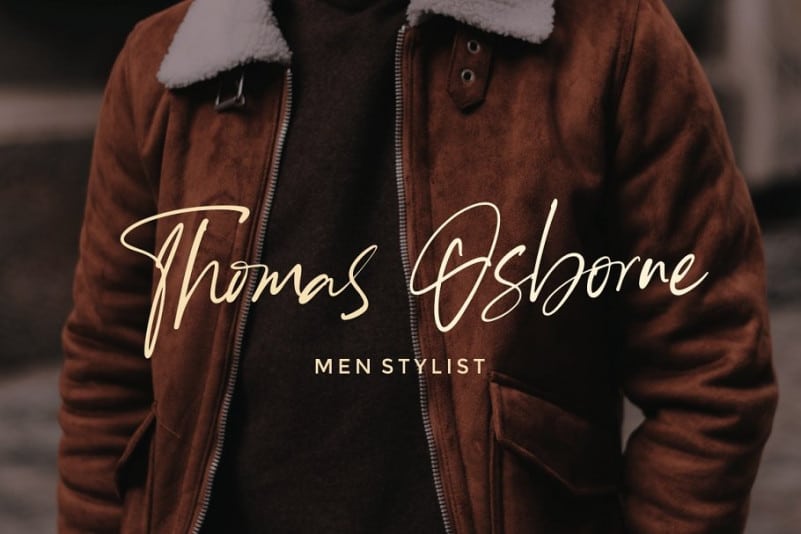
Westborn – Signature Font
Hello Guys, This is a Script Font with signature Style. The Winsthen font made with digital brush pen strokes that making this font look authentic! I hope this font perfect for creating signature logos and watermarks for a photography studio or wedding invitation, best for initial or branding logo signature. Introducing Westborn Font. It’s a stylish signature font perfect for branding, invitation, stationery, wedding designs, social media posts, advertisements, product packaging, product designs, label, photography, watermark, special events or anything. Westborn Signature comes with full set of uppercase and lowercase letters, 63 beautiful ligatures,multilingual symbols, numerals and punctuation.